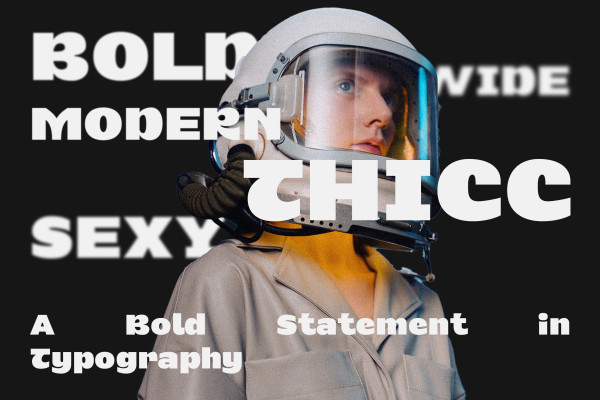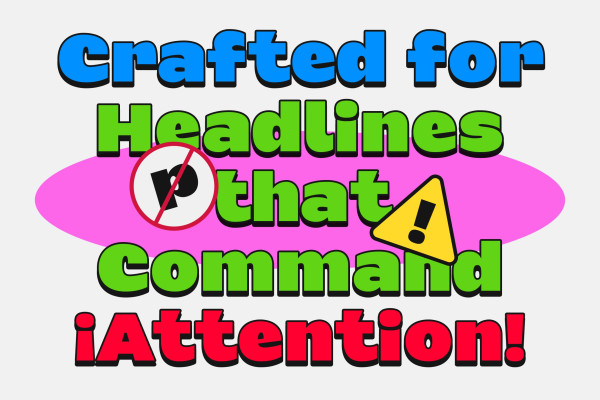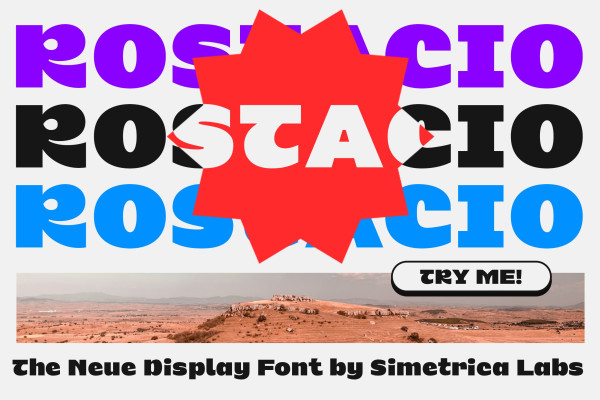
Rostacio Font
Rostacio Font: The definitive modern font for impactful headlines and resonant logos. Make your mark with unmatched boldness.
Dive into the world of ‘Rostacio Bold Modern Font’, where modern-day typography meets unparalleled boldness. This isn’t just any font; it’s a movement, tailor-made for visionaries and rebels in the design world. As you navigate the vast landscape of fonts, Rostacio Font rises as the beacon for those who crave distinction. Its unique characters, strokes, and curves radiate a contemporary aura, making your headlines irresistibly captivating and your logos memorable.
Rostacio’s magic lies in its duality. On one hand, its fresh and modern style aligns with today’s design trends. On the other, it has classic undertones that echo timeless elegance. It’s this harmonious blend that sets Rostacio apart.